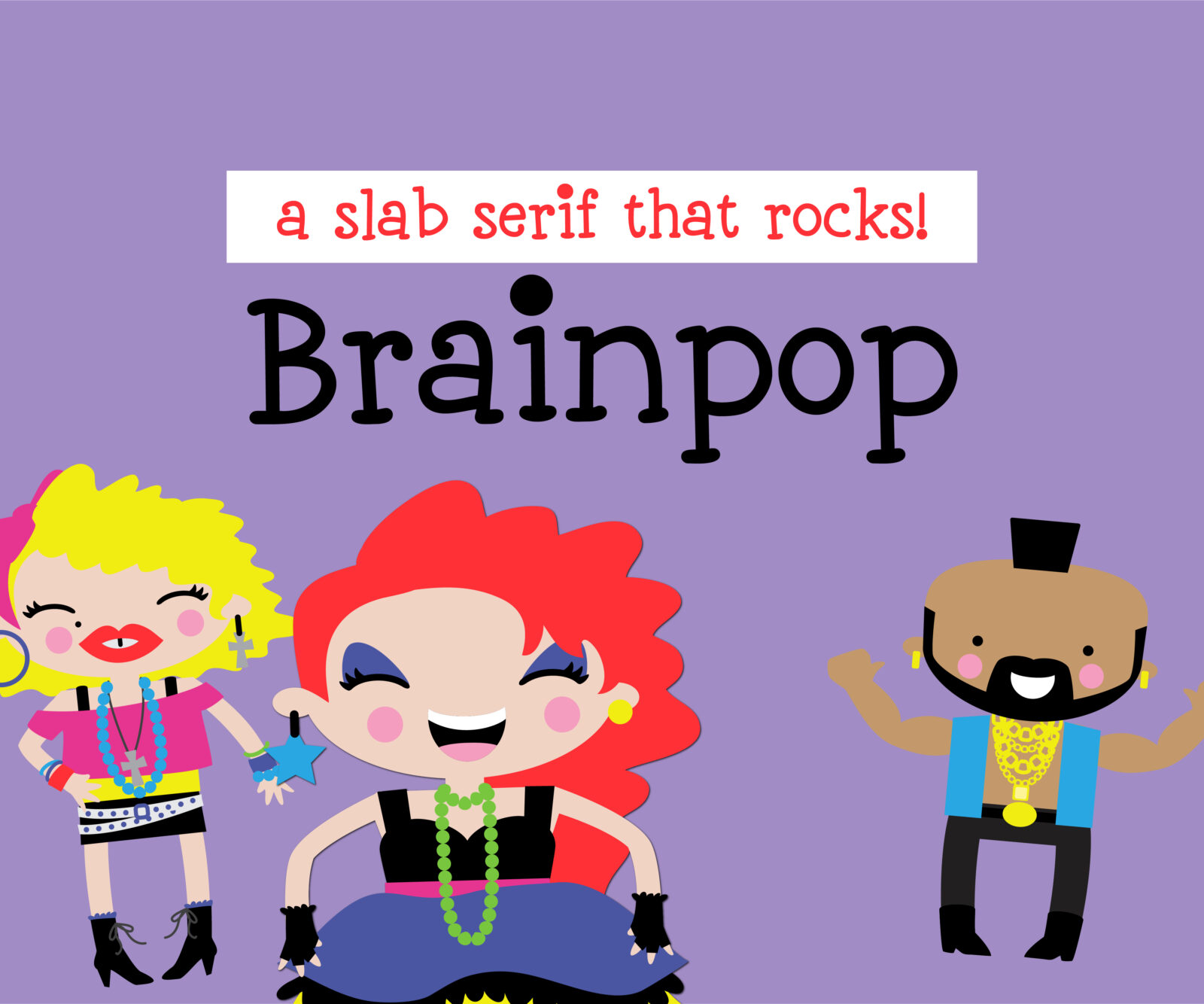
The Brainpop Font: A Fun Slab Serif for Creative Projects
I’ll never forget the time I was working on a project for a children’s educational website. My client wanted a font that was both fun and professional, but I was struggling to find the perfect fit. That’s when I stumbled upon the Brainpop font. With its hand-crafted whimsiness and slab serif charm, it instantly captured the playful yet educational vibe I was going for. In this article, I’ll share my experience with the Brainpop font, its features, and how to make the most of it in your designs.
An Honest Review of Brainpop Font
What I Love About Brainpop Font
- ✨ Unique Character: Brainpop has a distinct personality that sets it apart from other slab serif fonts. Its hand-crafted feel gives it a warm and approachable vibe.
- ✅ Versatility: This font is incredibly versatile and can be used for a wide range of design styles, from playful and fun to professional and educational.
- 💡 Legibility: Brainpop is highly legible, even at smaller font sizes, making it perfect for body text and headings.
While Brainpop is an excellent font, it’s not without its quirks. For instance:
- 🤔 Limited Formality: Brainpop’s playful nature makes it less suitable for very formal or corporate designs. You might want to pair it with a more formal font for such projects.
- ⚠️ Glyph Limitations: While Brainpop has a range of glyphs and OpenType features, it might not have every special character or symbol you need. Be sure to check the font’s capabilities before committing to a project.
The Story Behind Brainpop Font
The Brainpop font was designed with education and creativity in mind. Its creator aimed to craft a font that was both fun and professional, suitable for a wide range of design projects. While the exact story behind Brainpop might be fictional, its impact on designers and creatives is real.
| Is Brainpop suitable for body text? | Yes, Brainpop is highly legible and can be used for body text, but it shines in headings and titles. |